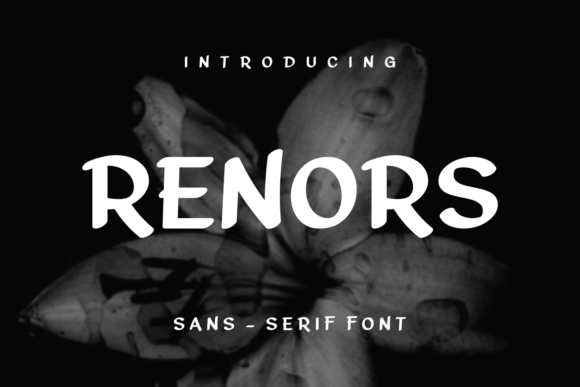
Behold the Renors Font, a captivating sans serif font that will revolutionize your digital creations. This meticulously crafted font, brought to life by the talented lelevien, is not just a mere addition to your font collection; it's a gateway to a world of limitless creativity and expression.
Embark on a design journey like no other, where Renors Font takes center stage, transforming your projects into masterpieces. Its clean lines and sharp edges exude a modern and sophisticated charm, making it the perfect choice for tech-savvy individuals, forward-thinking businesses, and anyone who craves a touch of innovation in their designs.
With Renors Font at your disposal, you'll discover a font that effortlessly adapts to your every need. Whether you're crafting sleek logos, captivating website designs, or eye-catching social media graphics, Renors Font seamlessly blends with your vision, elevating it to new heights.